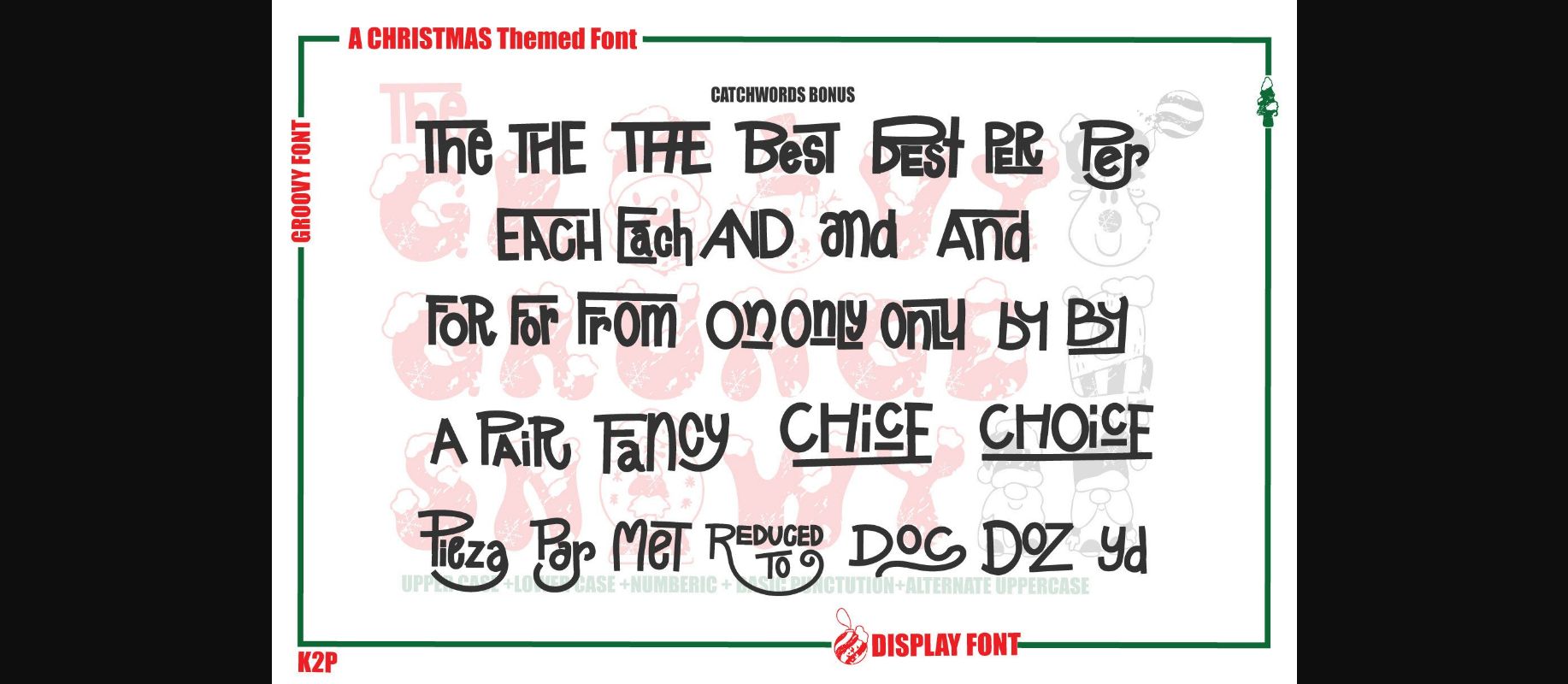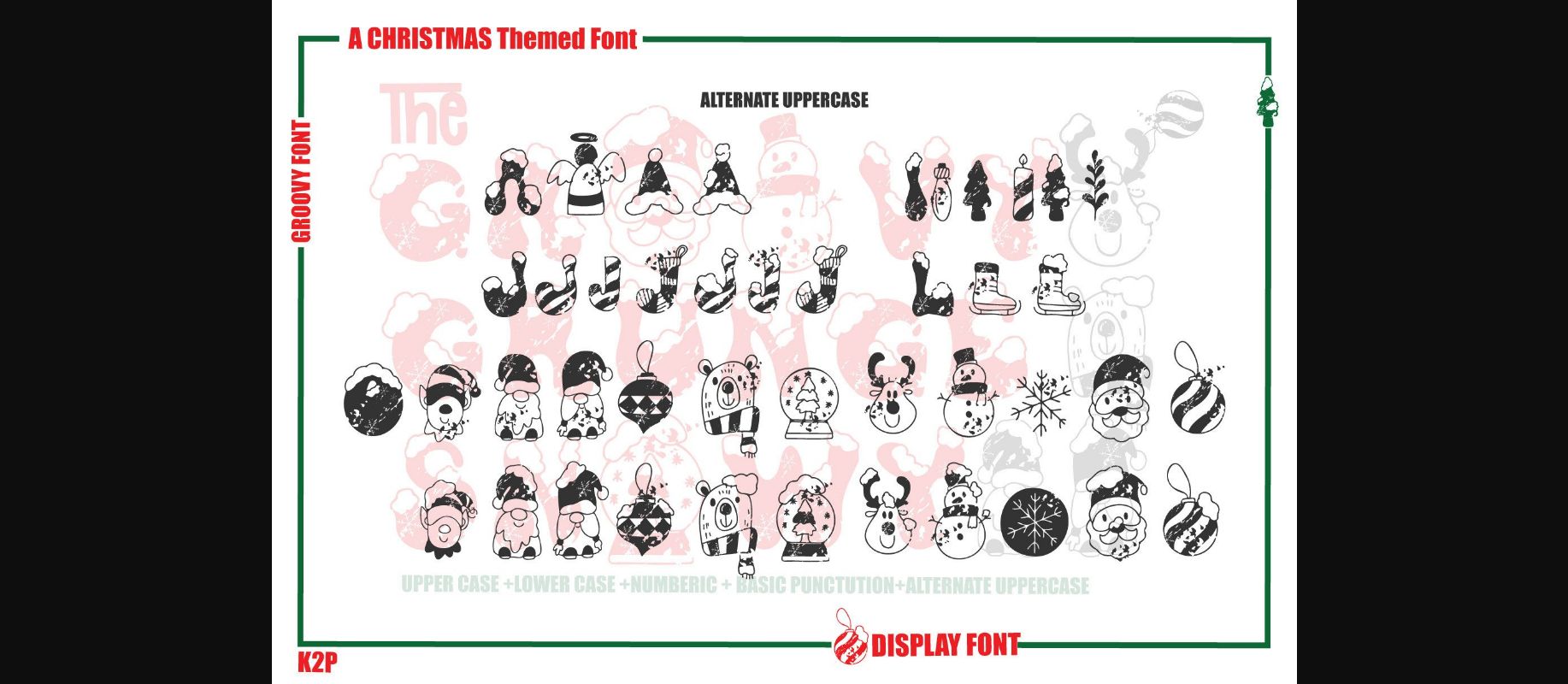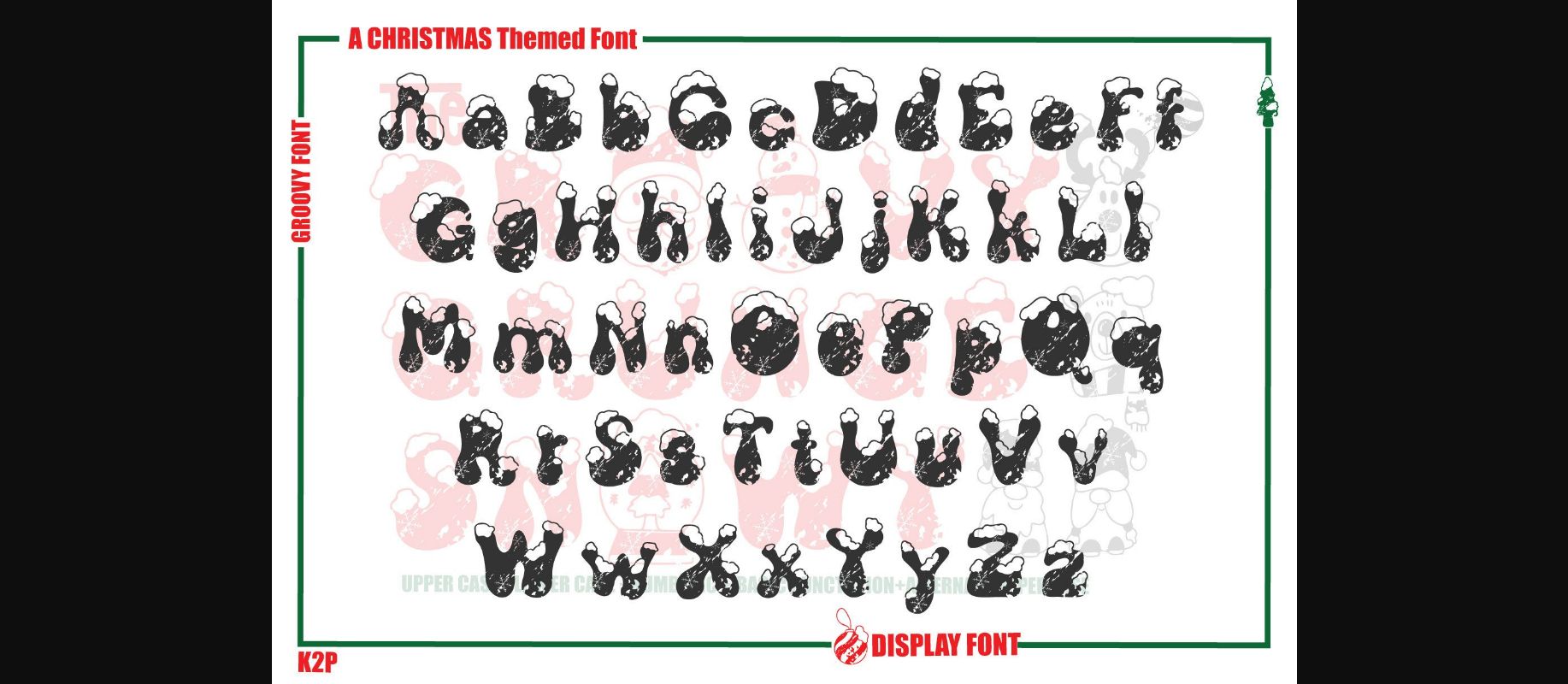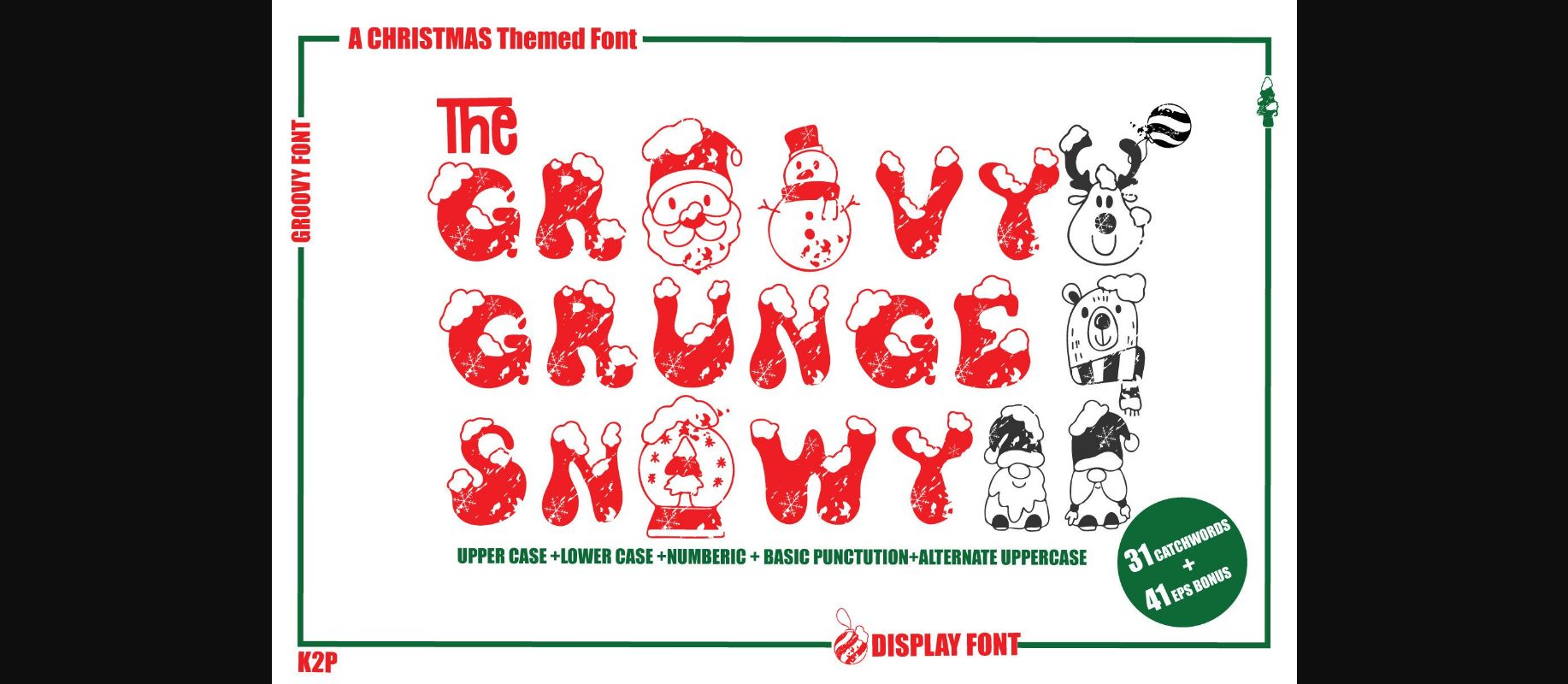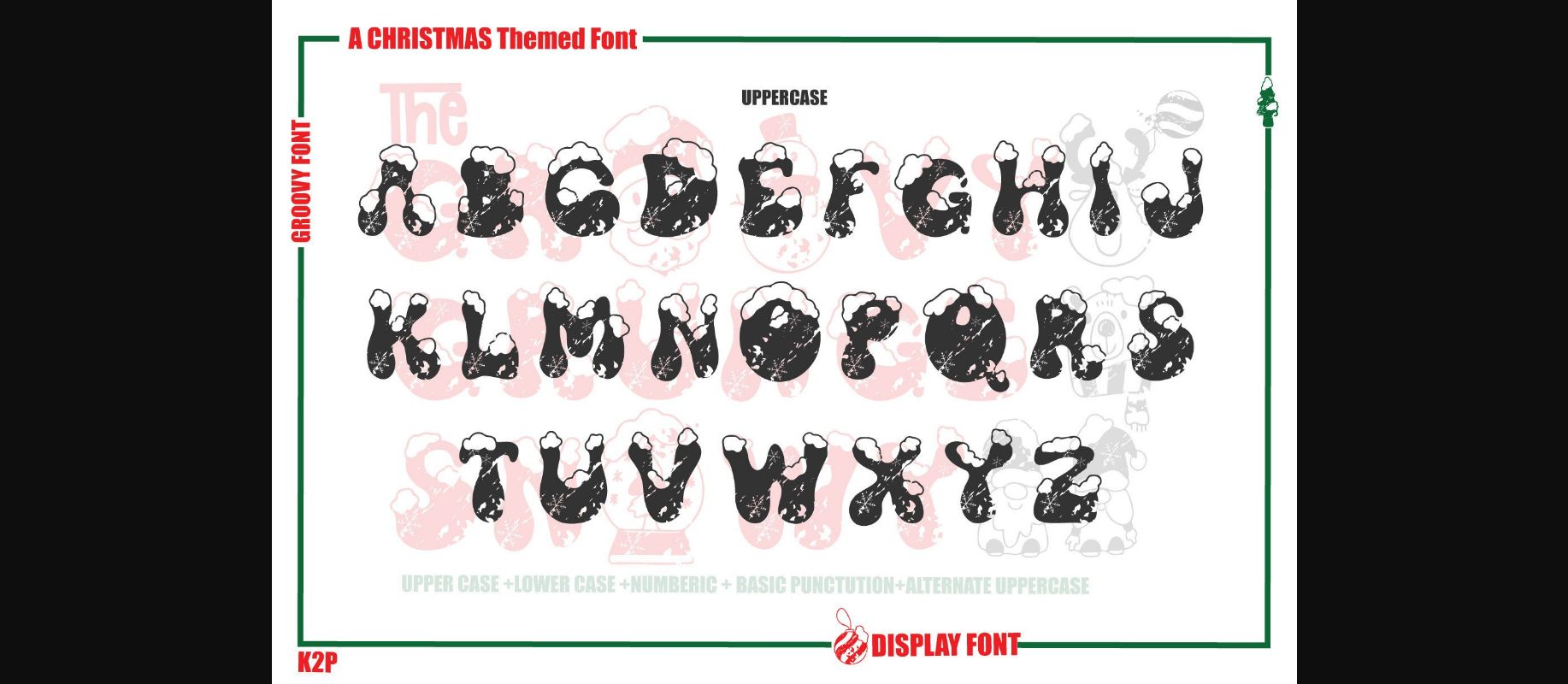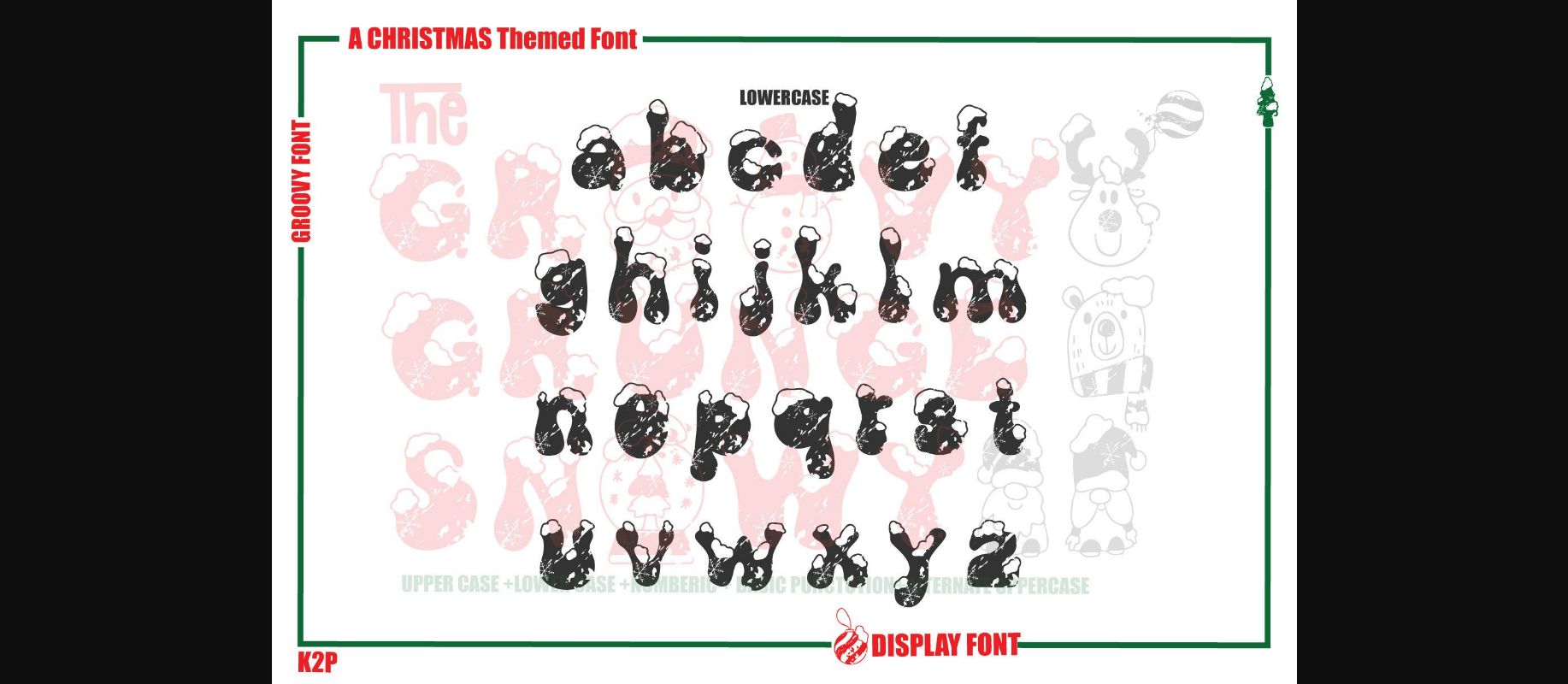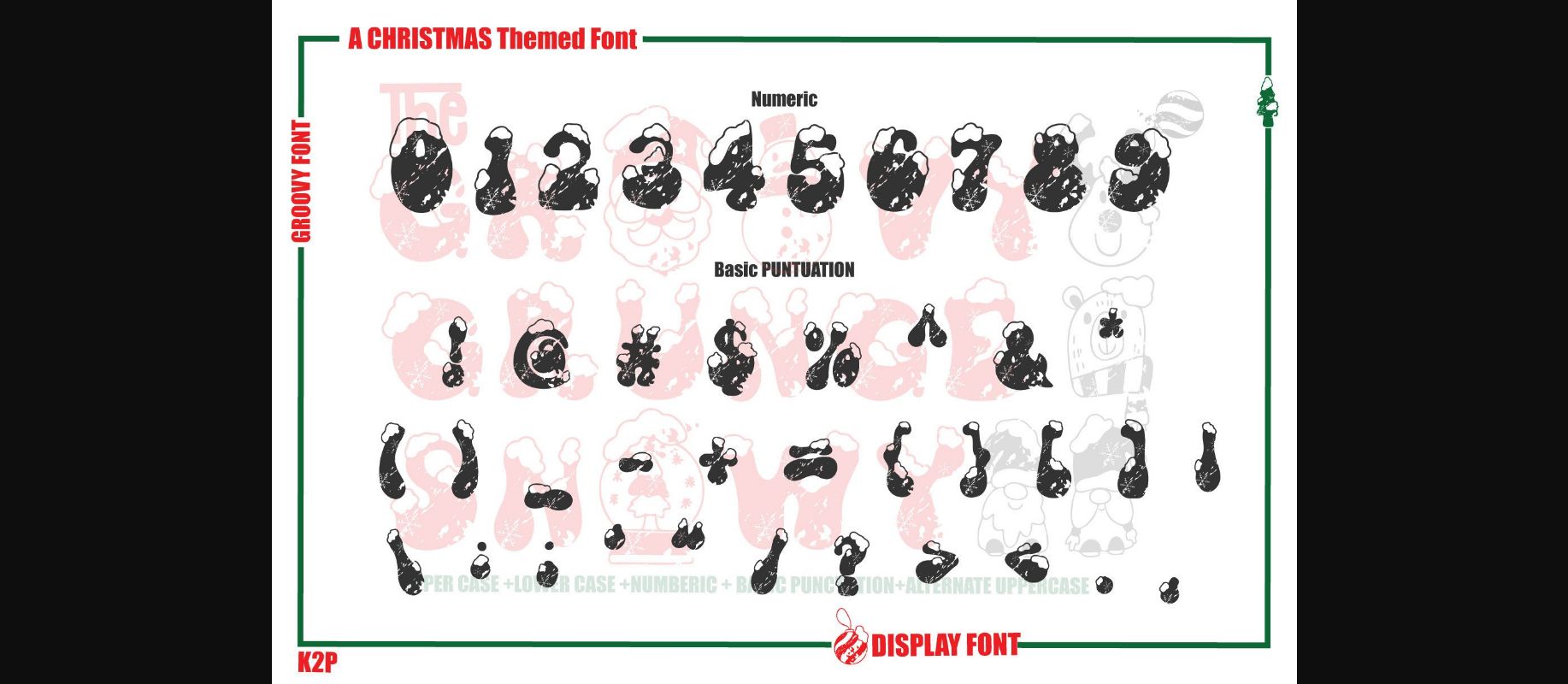
About Groovy Grunge Snowy Font
Groovy Grunge Snowy is a fun and incredibly unique decorative font. It can be used for various design ideas, particularly those related to the Christmas Holiday.